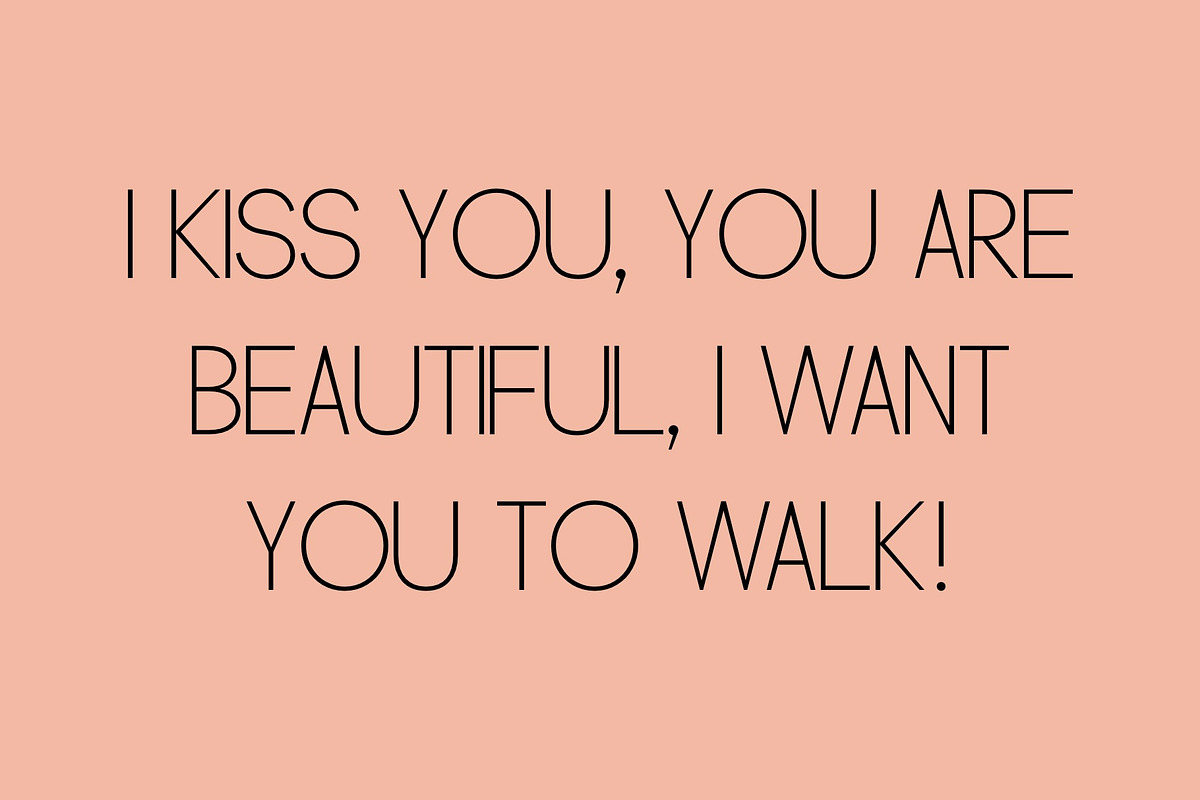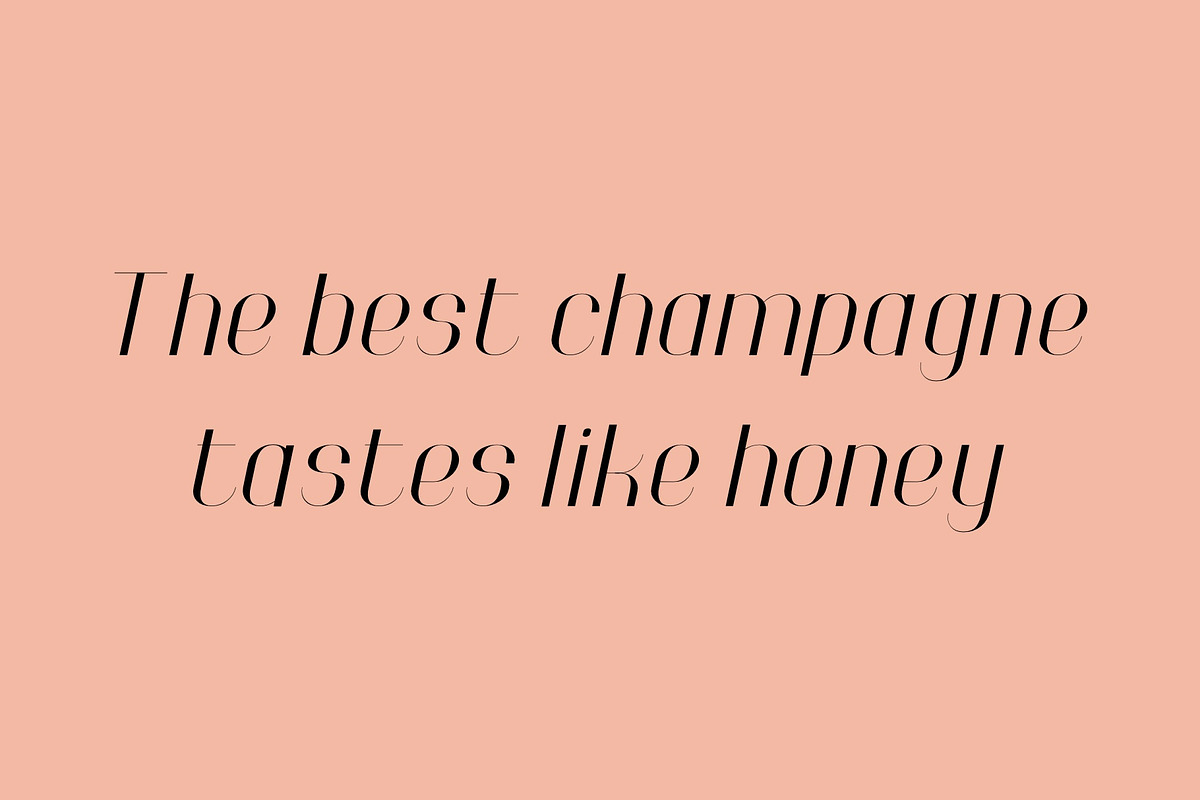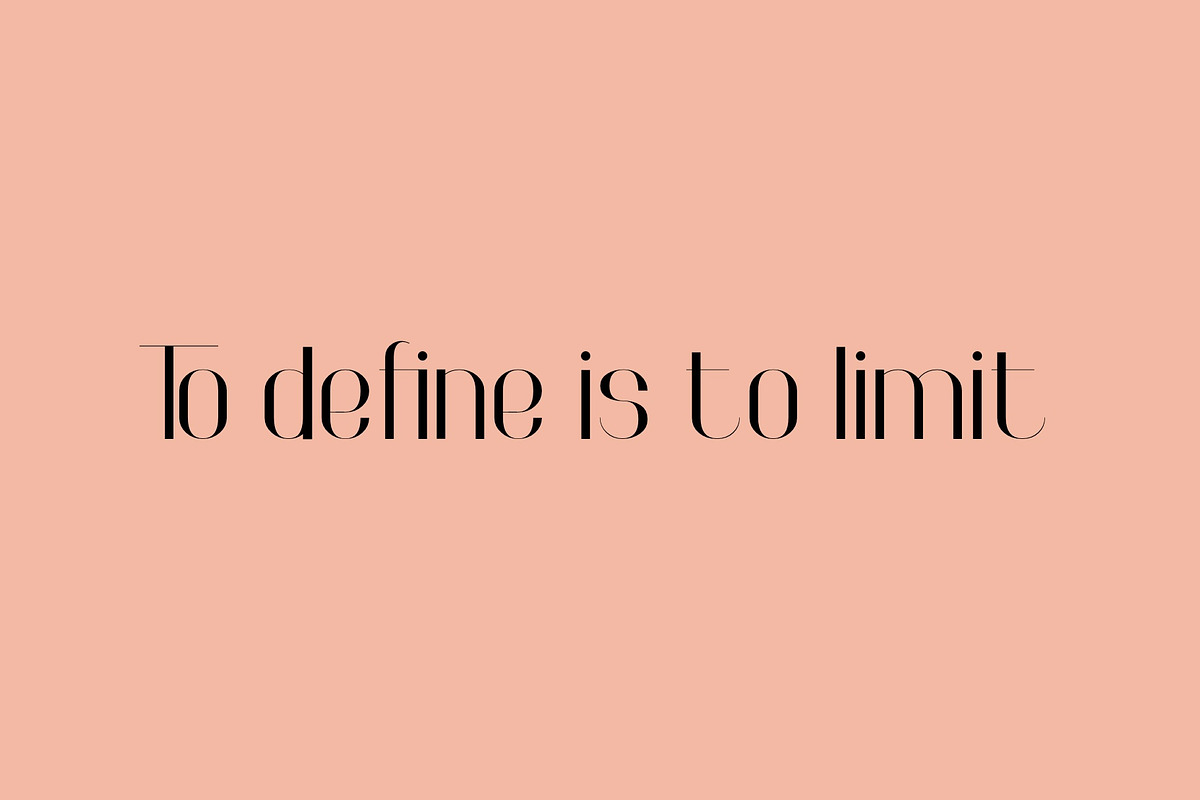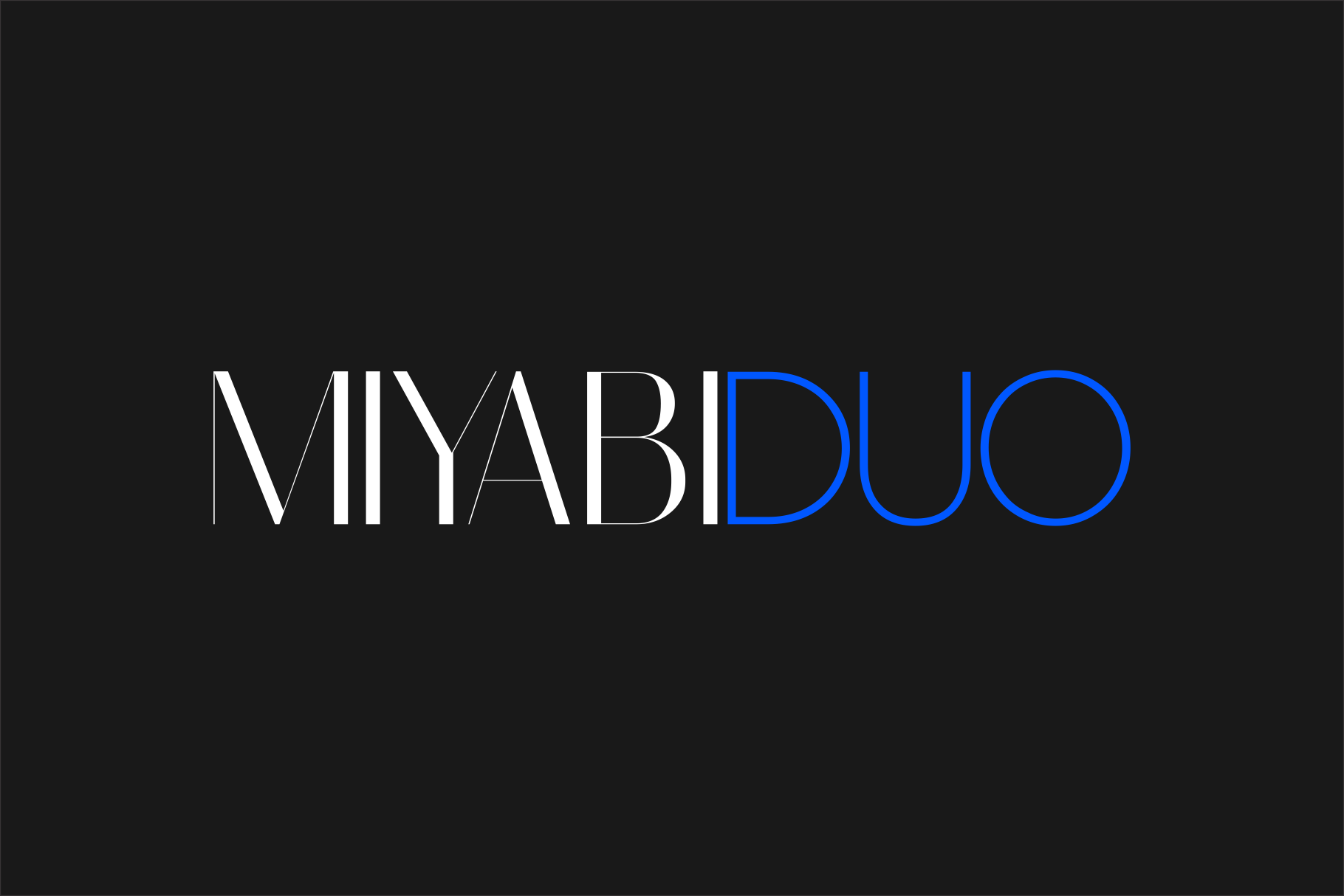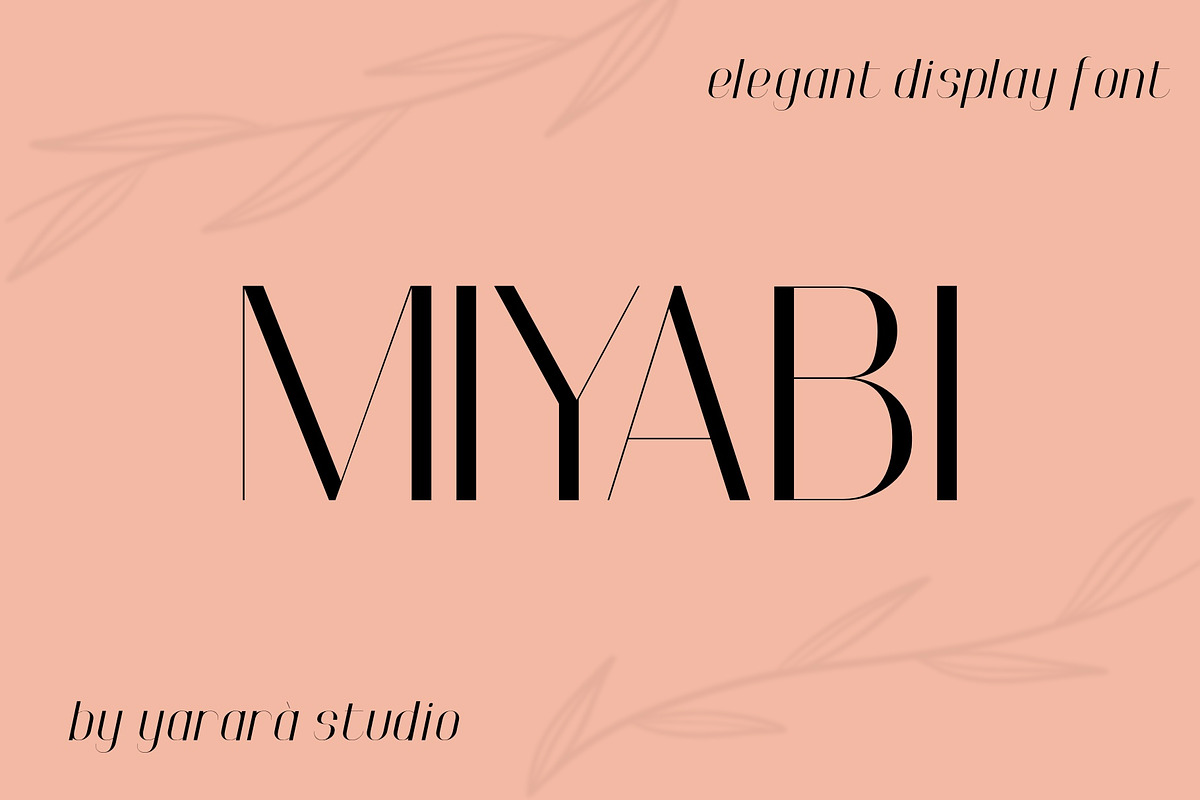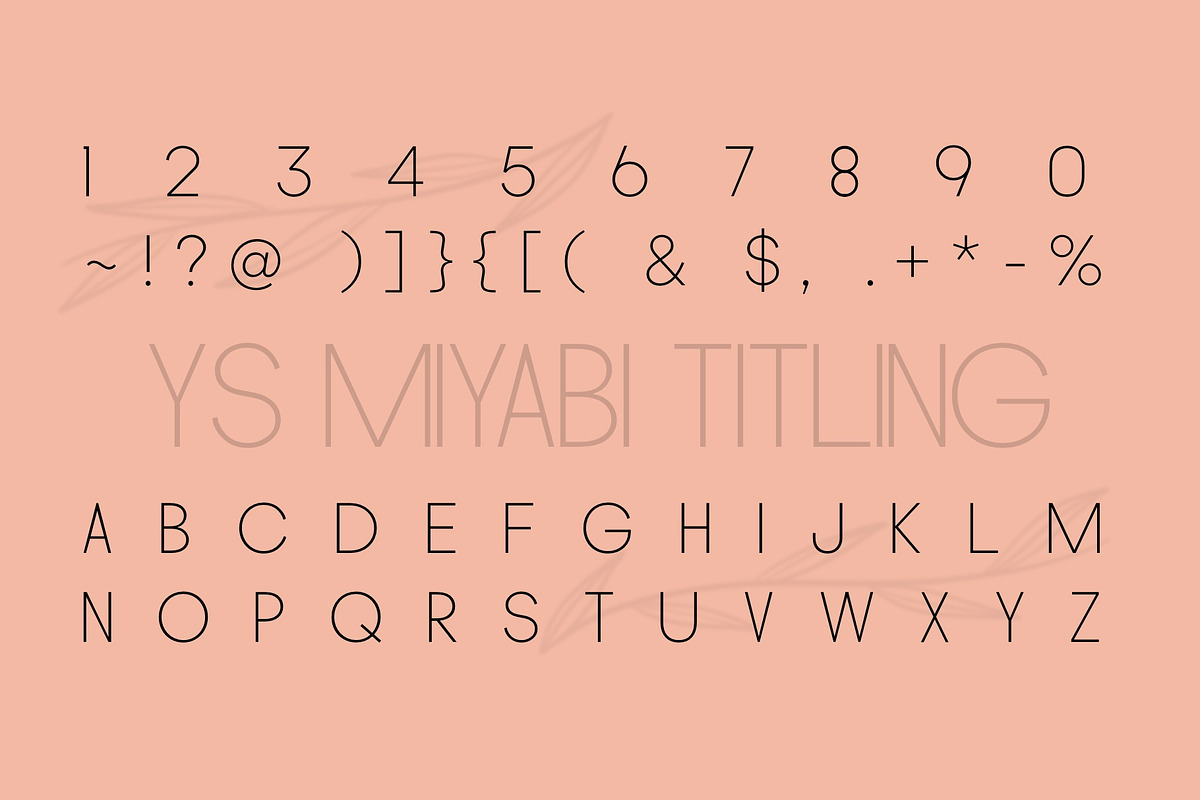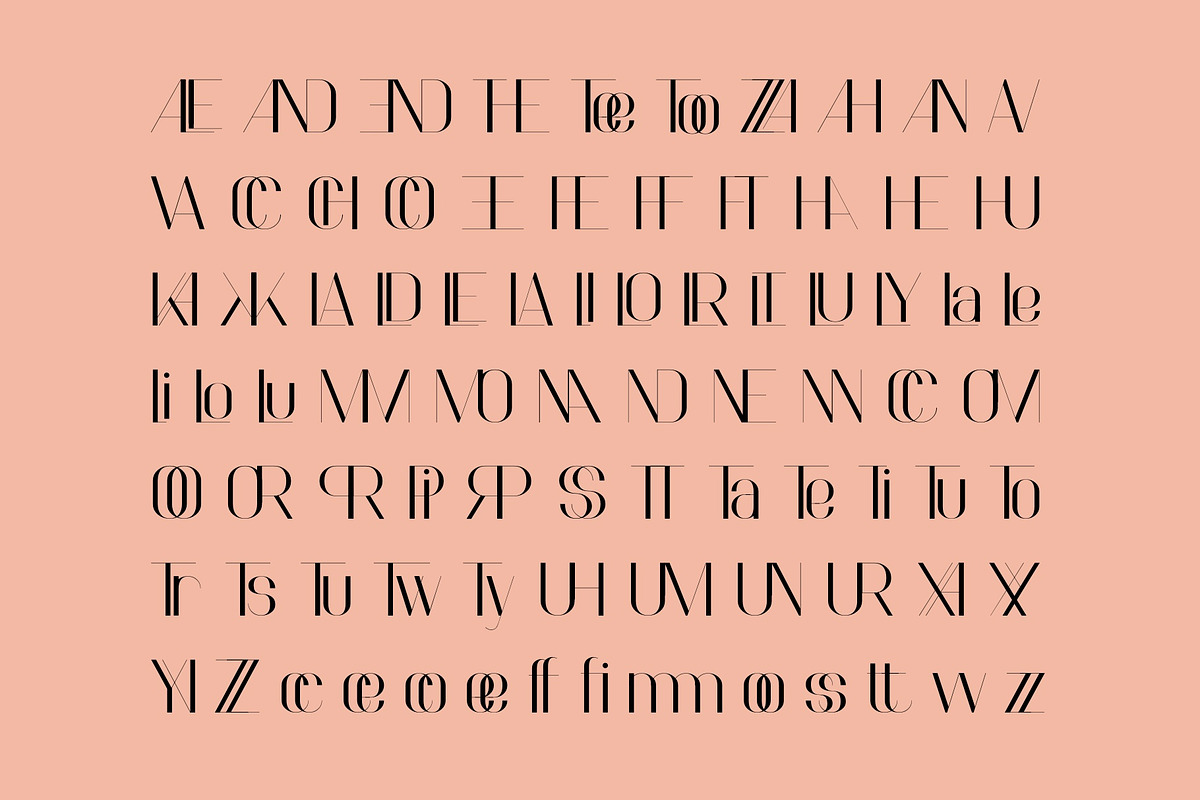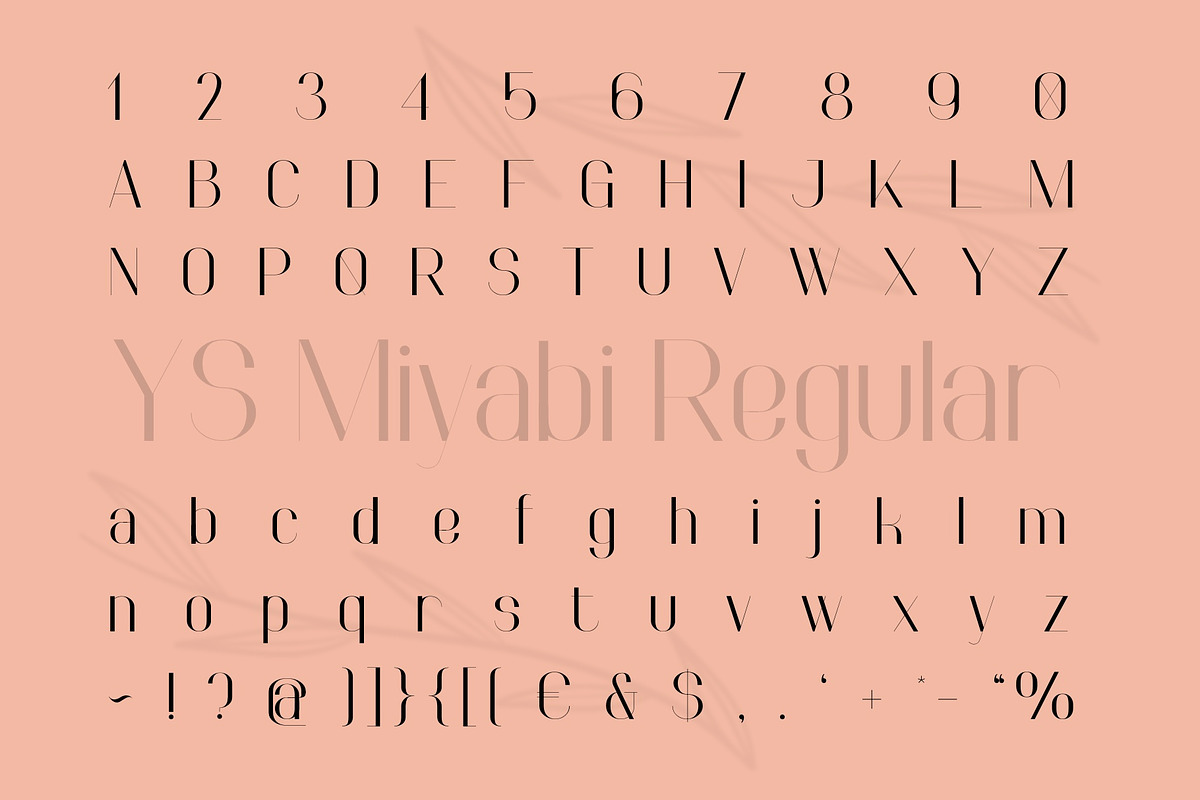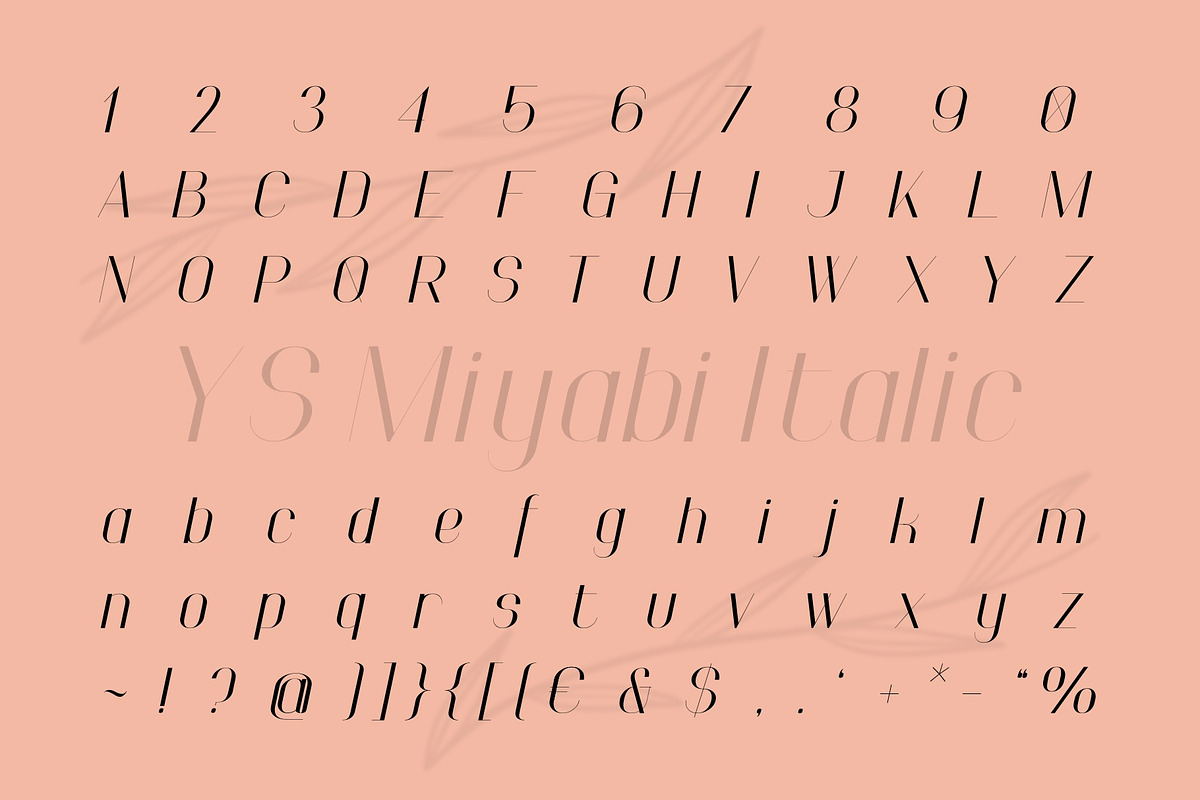
Miyabi Duo Font
Miyabi is an elegant and classy display font inspired by the Art Deco. The original and stylish ligatures will help you create a unique design. Ideal for magazines and fashion journals.